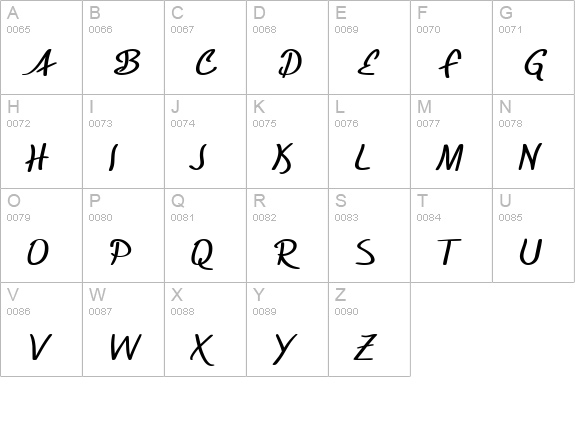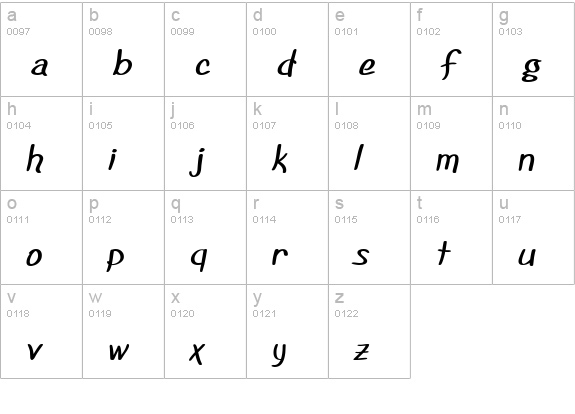
SF Foxboro Script Extended Bold Font Details
SF Foxboro Script Extended Bold is a strong, high-contrast, extended-width variant in the SF typeface family \xE2\x80\x94 well suited to headlines, attention-grabbing titles, and strong calls-to-action.
SF Foxboro Script Extended Bold is a stunning and eye-catching font that embodies elegance and sophistication. With its bold and elongated strokes, this font is perfect for creating striking headlines, logos, and branding materials. Its unique design exudes a sense of modernity and versatility, making it suitable for a wide range of projects. This typeface is not only visually appealing but also highly legible, ensuring that your message gets across effortlessly. The bold weight adds an extra level of emphasis, making it ideal for grabbing attention and leaving a lasting impression. What sets SF Foxboro Script Extended Bold apart is its versatility and adaptability. Whether you're designing a fashion magazine, a sleek website, or an upscale invitation, this font can effortlessly elevate your project to new heights. Its stylish and contemporary aesthetic is sure to captivate your audience and make your work stand out from the crowd. One of the best things about SF Foxboro Script Extended Bold is that it is freely available to download at FontsMarket.com. This means that you can add this exquisite font to your collection without any cost, making it a fantastic choice for designers on a budget. With its high-quality design and seamless integration into various projects, SF Foxboro Script Extended Bold is a must-have font for any design enthusiast. Download SF Foxboro Script Extended Bold for free at FontsMarket.com and unlock a world of possibilities for your creative ventures. Whether you're designing for print or digital media, this font is guaranteed to make a bold statement and leave a lasting impression. Don't miss out on this exceptional font – grab it now and take your designs to new heights of excellence.